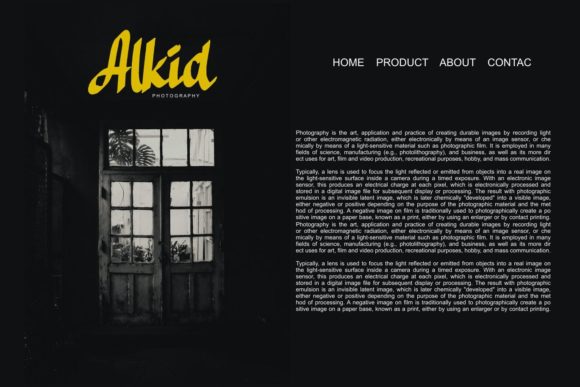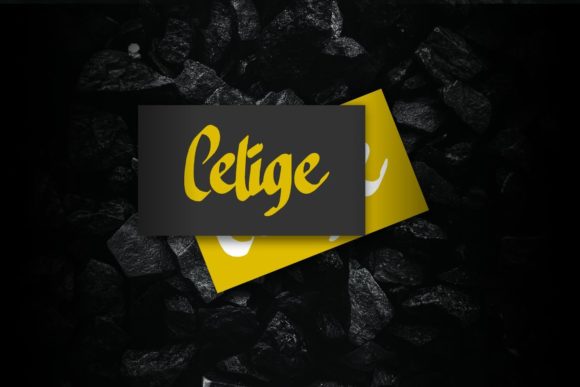
About Cebigej Font
Cebigej is a beautiful, casual and thick lettered handwritten font. This font was particularly crafted for those who need a beautiful and refreshing look to their designs.